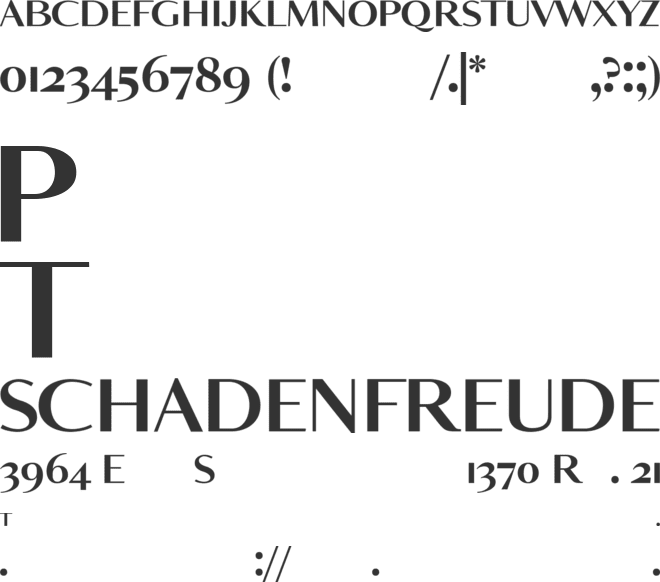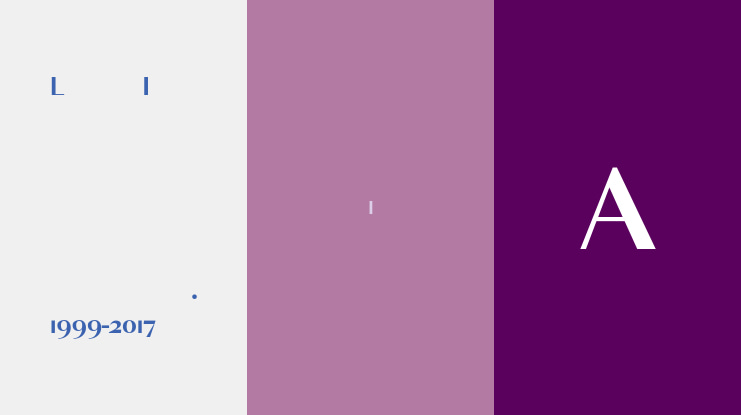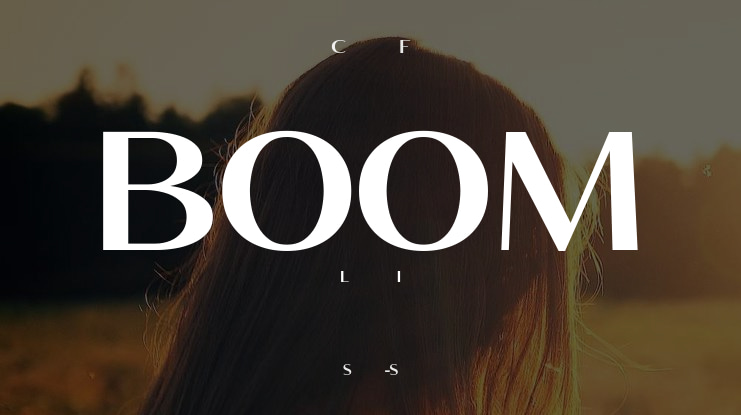
🎨 Font Name: BOOM by Minimalist Art Studio
🎨 Font Description: A bold yet refined sans serif with delicate curves and multilingual versatility—perfect for modern branding and editorial elegance.
✔ Complete Latin set + multilingual diacritics
✔ Alternates, stylistic sets & ligatures
✔ Numbers, small caps, and extended punctuation
✔ Bonus italics and family styles